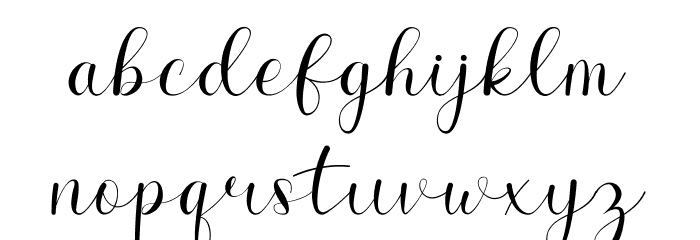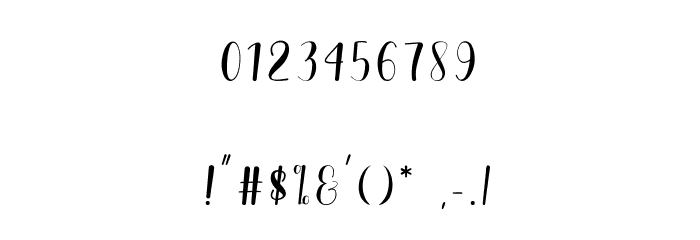
The Charlotte Font
This elegant script font features a flowing, cursive style with graceful loops and swashes. The uppercase letters are particularly ornate, with extended flourishes that add a touch of sophistication. The lowercase letters maintain a consistent flow, enhancing readability while preserving the decorative nature. The numerals are styled to match the overall aesthetic, offering a cohesive look. Special characters are included, maintaining the same elegant design. This font is ideal for projects that require a touch of elegance and sophistication, such as wedding invitations, branding, and high-end product packaging.
An elegant script font with flowing cursive letters and ornate flourishes.
- Proposed Projects: Wedding invitations, luxury branding, elegant product packaging, greeting cards.
- Overall Style: Elegant
- Use Case: Logos, Invitations, Branding